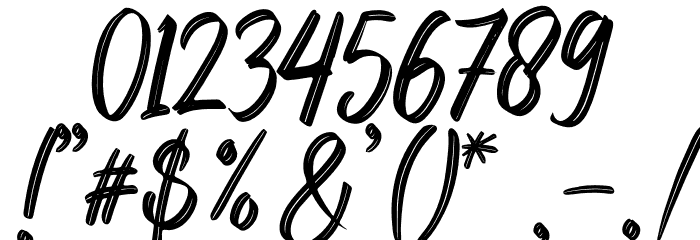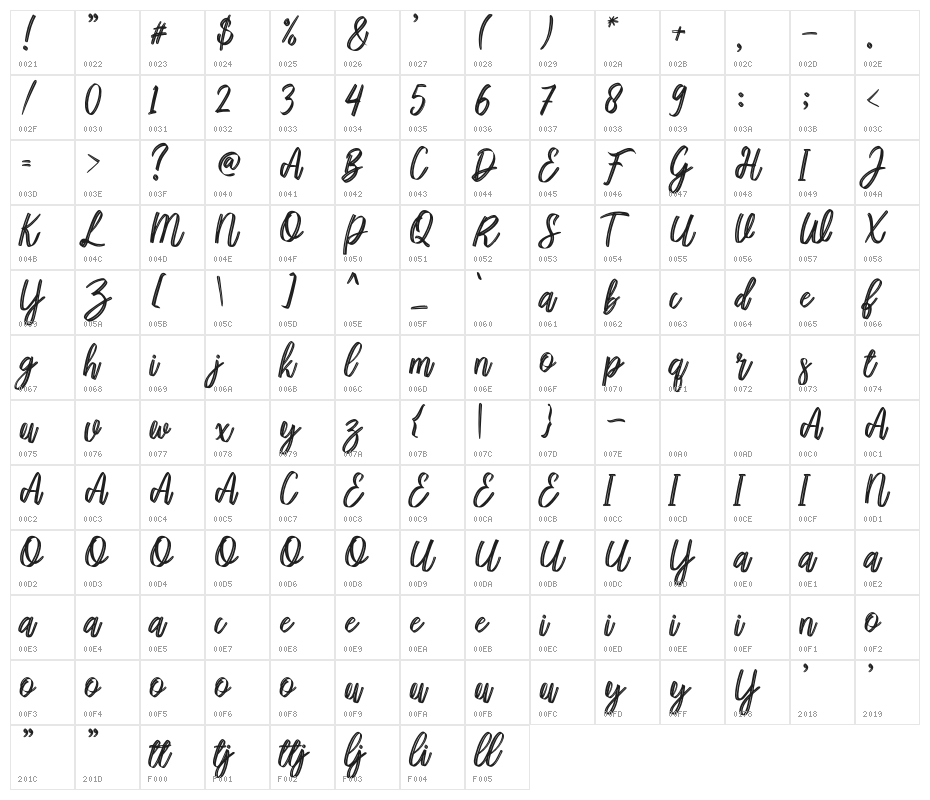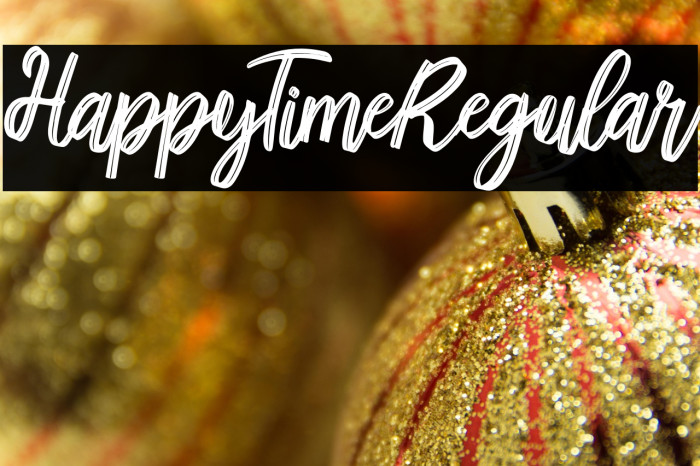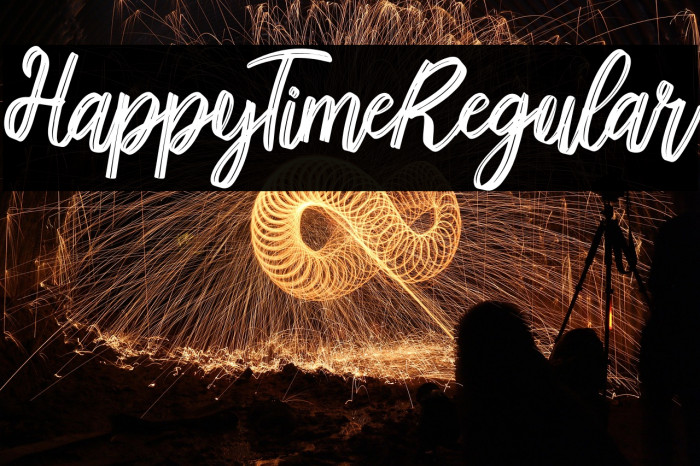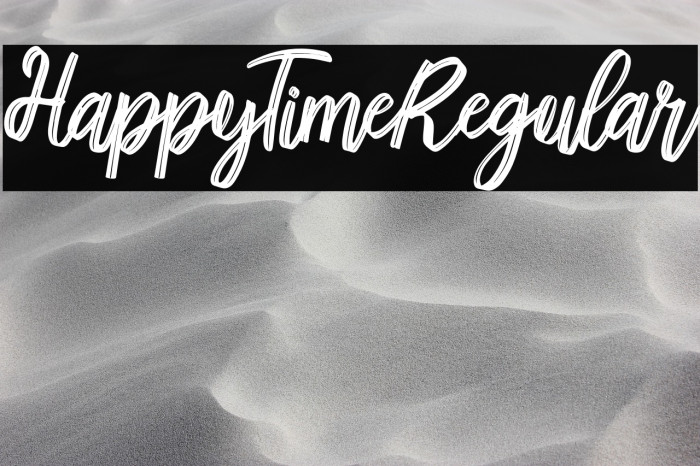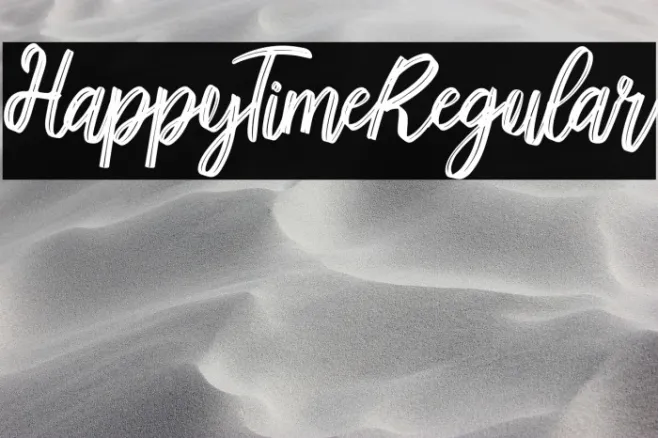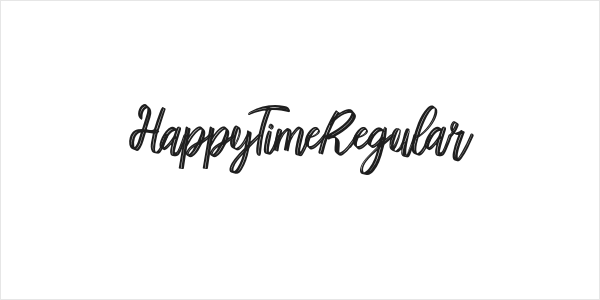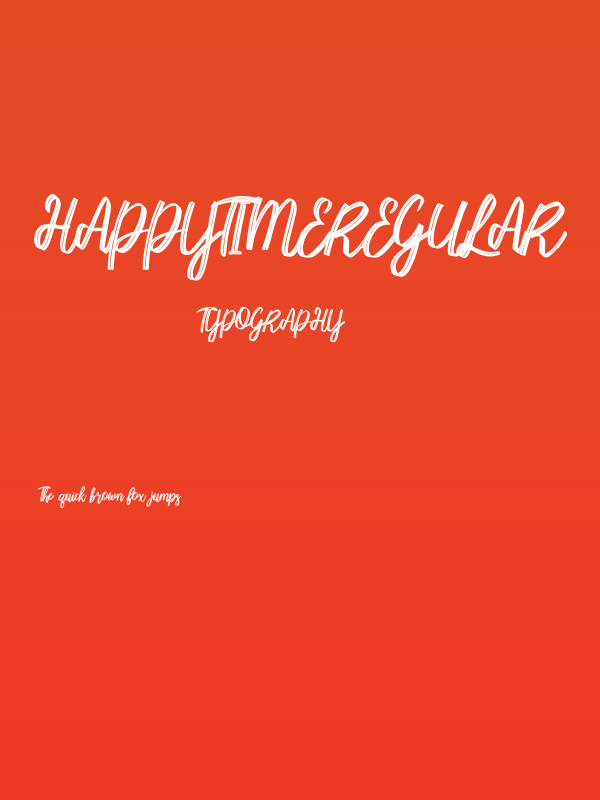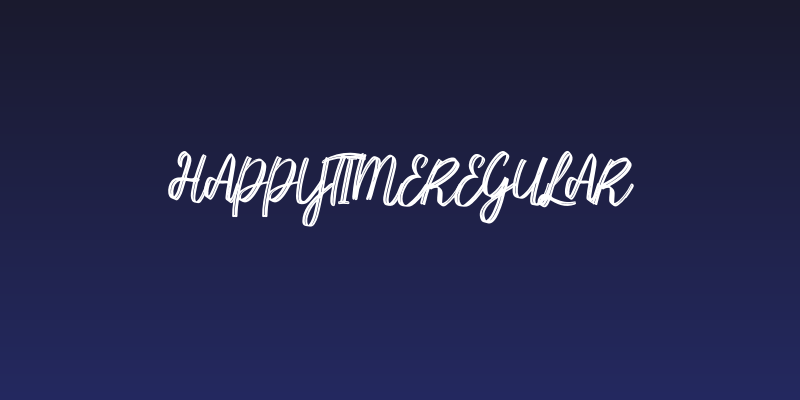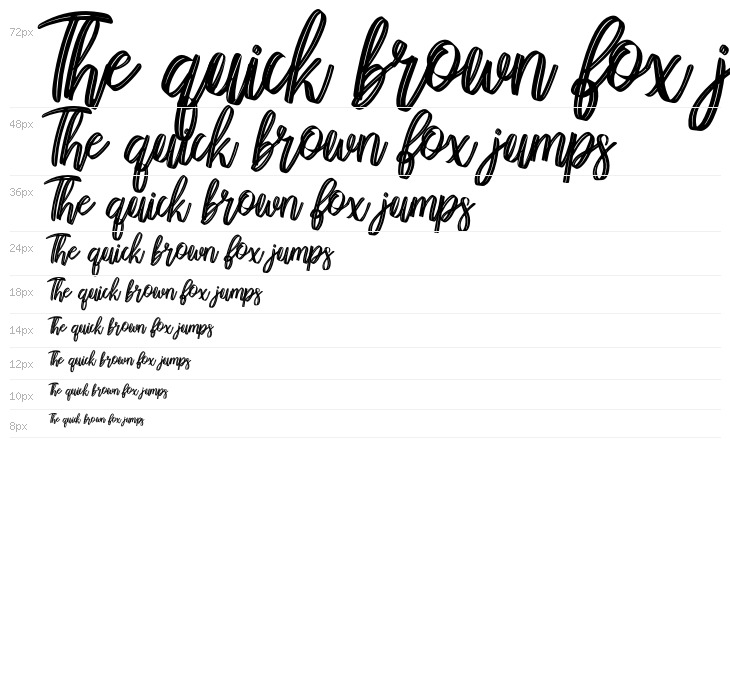
HappyTimeRegular Font
HappyTimeRegular Description
This font features a lively and dynamic script style, characterized by its flowing, interconnected letters that mimic natural handwriting. The strokes are bold and confident, giving each character a sense of movement and energy. The uppercase letters maintain a consistent height, while the lowercase letters exhibit a playful bounce, adding to the font's overall charm. Numbers and special characters are crafted with the same fluidity, ensuring a cohesive look across all text elements. The font's expressive nature makes it ideal for projects that require a personal touch.